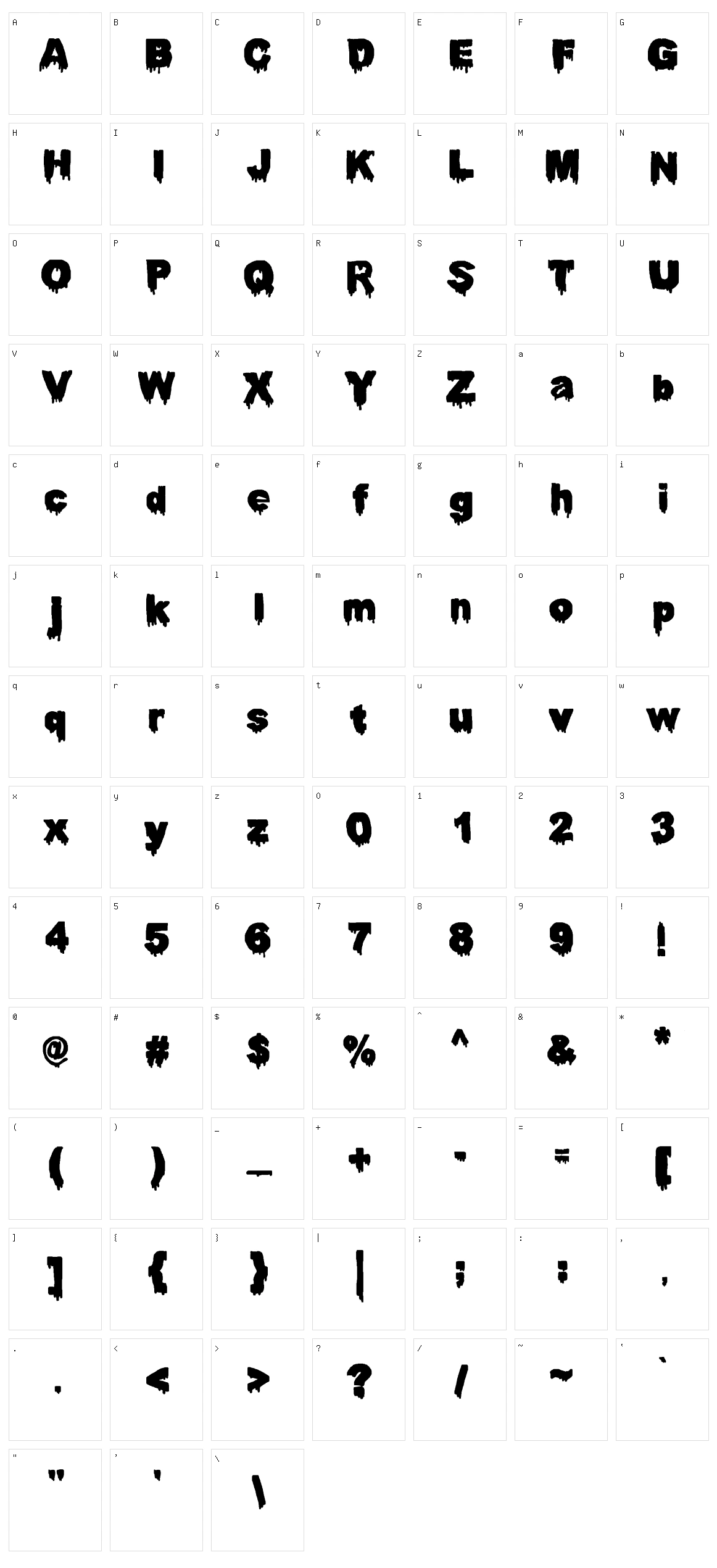
The free font Darah Erc is carefully designed by The Space Wanderer, showcasing a thoughtful balance of creativity and usability and falls under the Horror font style. When you download the ZIP file, it contains only 161.79 KB of font files, making it lightweight and quick to download. Please review the license details below to understand permitted usage and distribution rights. If license information is not available, we recommend using this font for personal projects only or contacting the author directly for commercial usage permissions.
Darah
By Eric Wiryanata. December 2008